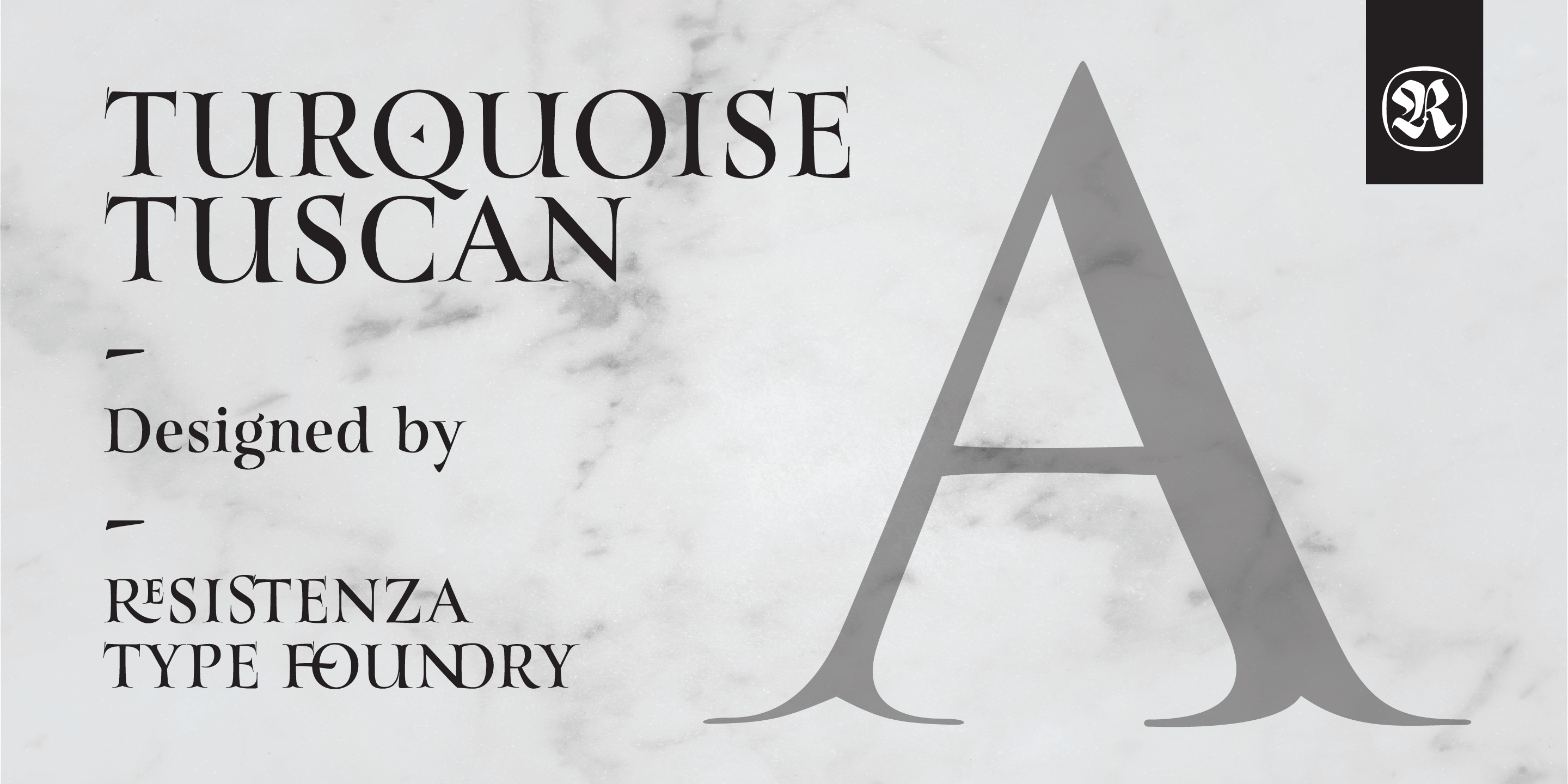
The Turquoise Tuscan Font is an excellent choice for projects that demand a touch of vintage elegance and a unique aesthetic. Imagine it gracing the labels of artisanal food products, adding character to branding for quaint cafes, or bringing a nostalgic feel to event invitations. It's also perfectly suited for designing striking headers for blogs, creating eye-catching social media graphics, or adding a distinctive flair to poster designs that aim for a classic, handcrafted look. Its intricate details and expressive curves make it a standout for anything that needs to convey charm and heritage.
What makes Turquoise Tuscan Font particularly exciting is its ability to evoke a sense of history and craftsmanship while remaining highly legible. It beautifully marries the ornate characteristics of traditional Tuscan-style typography with a refreshing, perhaps slightly modern, twist suggested by its "Turquoise" descriptor—implying a vibrant or unique interpretation of the classic. This font communicates warmth, artistry, and a refined sense of style, instantly elevating any design it's applied to. Its distinctive serifs and unique letterforms create a memorable visual impact that truly sets your work apart.
The Turquoise Tuscan Font family typically includes a range of weights and styles to provide flexibility for various design applications. While specifics can vary, you might find options such as regular, bold, and possibly even distressed or alternative character sets. These variations allow designers to create depth and visual hierarchy within their projects, ensuring consistency in branding and messaging across different mediums.